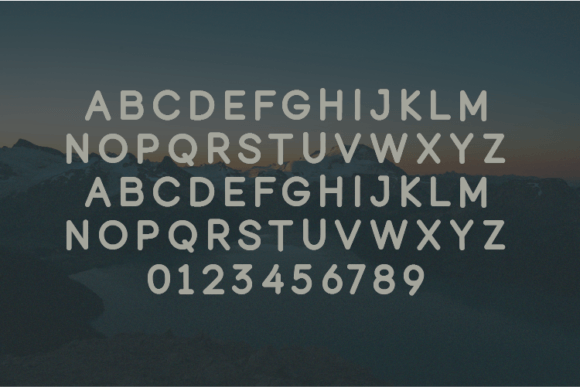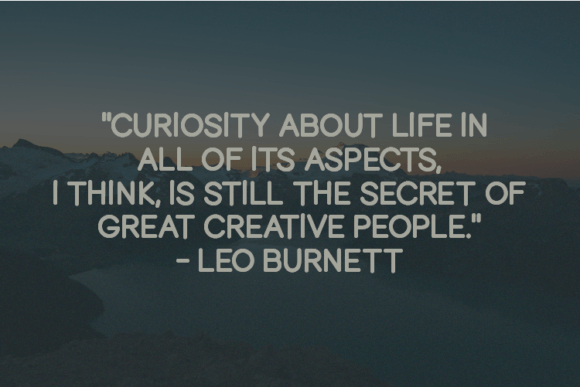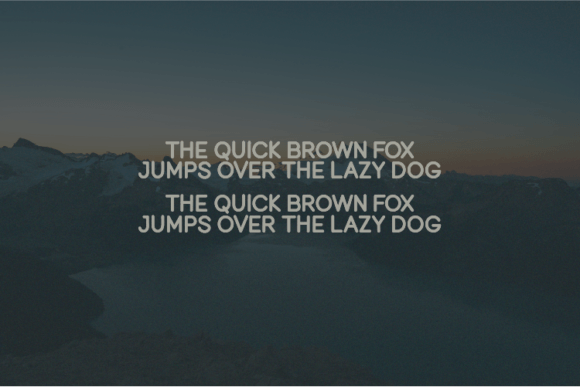
Ethereal Font: A Unique and Captivating Sans Serif Font
In the world of typography, fonts play a crucial role in conveying messages, expressing emotions, and creating visual identities. For designers, crafters, and creative enthusiasts, finding the perfect font can be a daunting task. However, if you’re looking for a font that stands out from the crowd, look no further than Ethereal Font. In this article, we’ll explore the fascinating features of Ethereal Font, its uses, and why it’s perfect for your next design project.
What is Ethereal Font?
Ethereal Font is a natural sans serif font that has been crafted with precision and attention to detail. What makes this font unique is that it was created without changing a single node in each character’s indentation. This approach has resulted in a font that exudes a sense of elegance, simplicity, and sophistication. The absence of any drastic modifications to the character’s indentation gives Ethereal Font a distinctive and captivating appearance.
Key Features of Ethereal Font
- Natural and Organic Look: Ethereal Font boasts a natural and organic look that makes it perfect for designs that require a subtle yet sophisticated touch.
- Sans Serif Design: The font’s sans serif design ensures that it remains clean, modern, and highly legible, even at smaller font sizes.
- Unique Character Indentation: The fact that no nodes were changed in each character’s indentation makes Ethereal Font truly one-of-a-kind.
- Versatile: This font is incredibly versatile and can be used for a wide range of design projects, from quotes and notes to t-shirts and product design.
Uses of Ethereal Font
Ethereal Font’s unique features make it an excellent choice for various design applications. Here are some of the ways you can use this captivating font:
- Quotes and Notes: Add a touch of elegance to your quotes and notes with Ethereal Font. Its clean design and natural look make it perfect for journaling, stationery, and inspirational quotes.
- T-Shirts and Apparel: Create stunning t-shirt designs with Ethereal Font. Its unique character indentation and sans serif design ensure that your designs stand out from the crowd.
- Product Design: Use Ethereal Font to create visually appealing product designs, such as packaging, labels, and branding materials.
- Digital and Print Media: Ethereal Font is also suitable for digital and print media, including social media graphics, blog posts, and magazine articles.
Why Choose Ethereal Font?
With so many fonts available, why should you choose Ethereal Font for your next design project? Here are a few compelling reasons:
- Uniqueness: Ethereal Font’s distinctive character indentation sets it apart from other fonts, ensuring that your designs stand out.
- Legibility: The font’s sans serif design and natural look ensure that it remains highly legible, even at smaller font sizes.
- Versatility: Ethereal Font is incredibly versatile and can be used for a wide range of design projects.
- Ease of Use: This font is easy to use and can be integrated seamlessly into your design workflow.
Ethereal Font is a captivating and unique sans serif font that is perfect for designers, crafters, and creative enthusiasts. Its natural and organic look, combined with its distinctive character indentation, makes it an excellent choice for a wide range of design projects. Whether you’re creating quotes, notes, t-shirts, or product designs, Ethereal Font is sure to elevate your designs to the next level. So, why not give Ethereal Font a try and experience its magic for yourself?